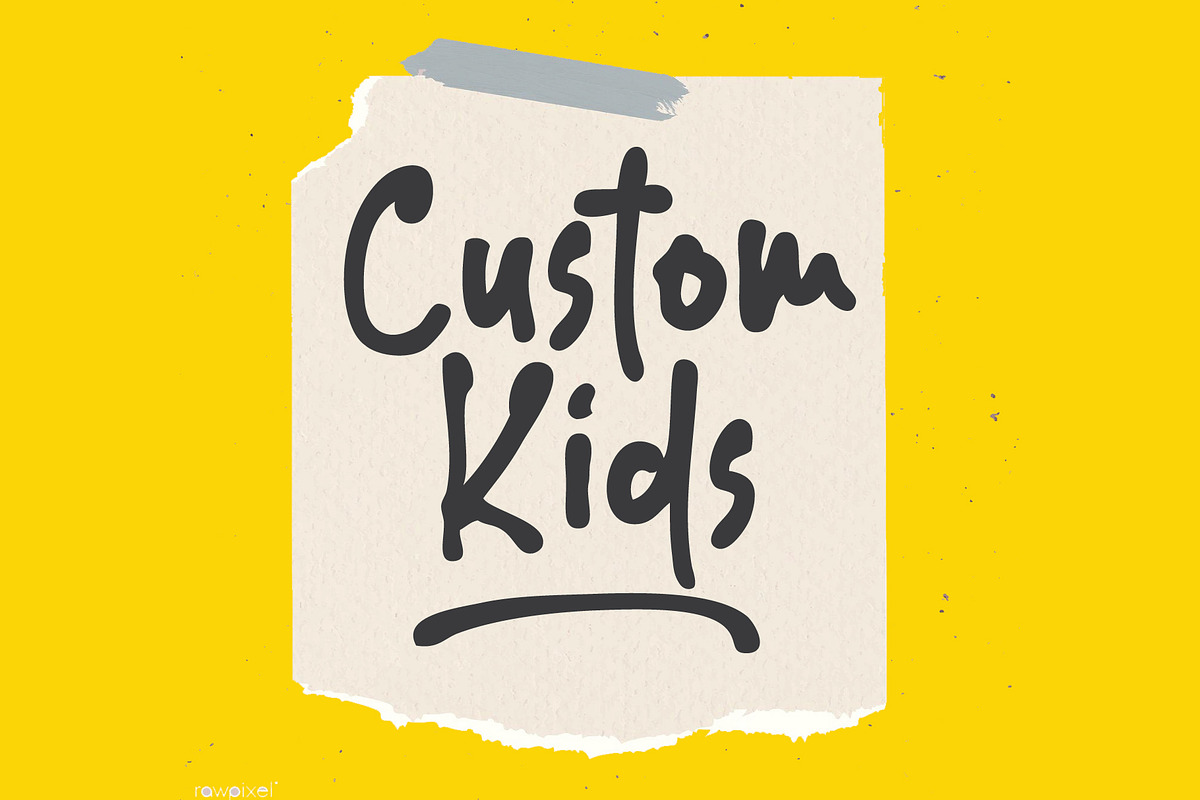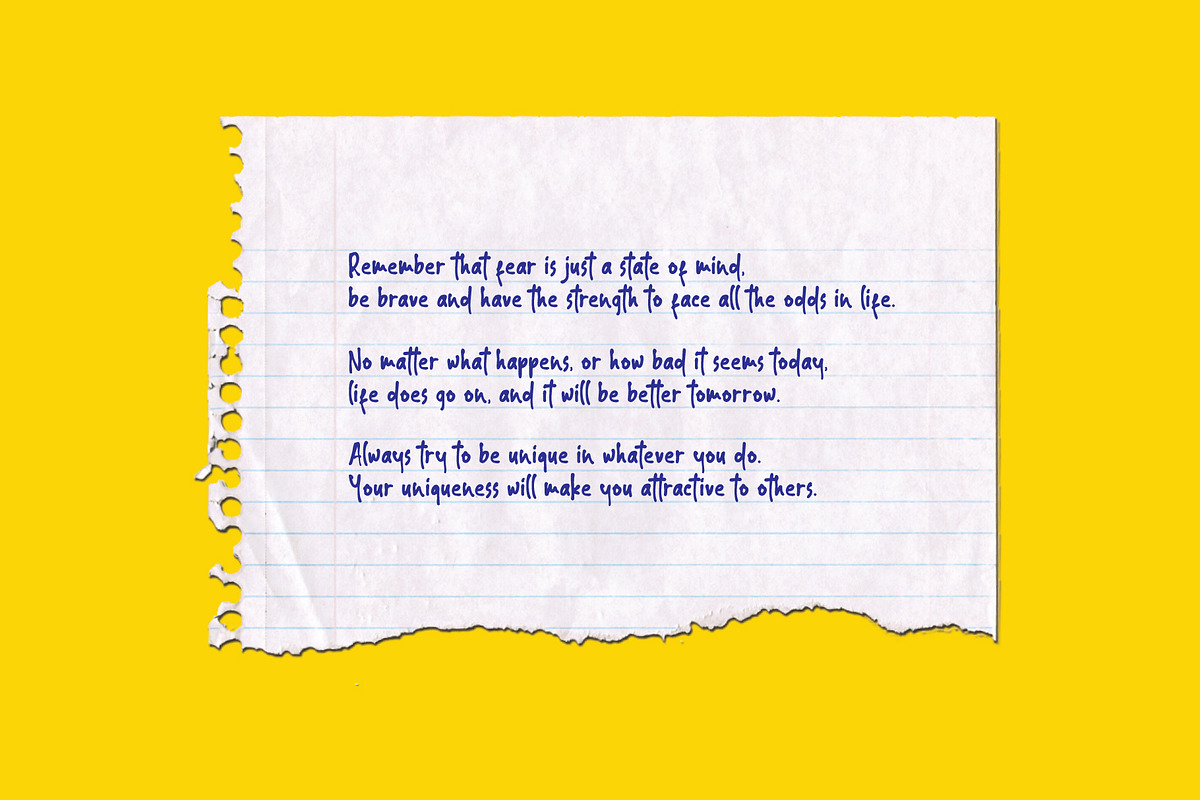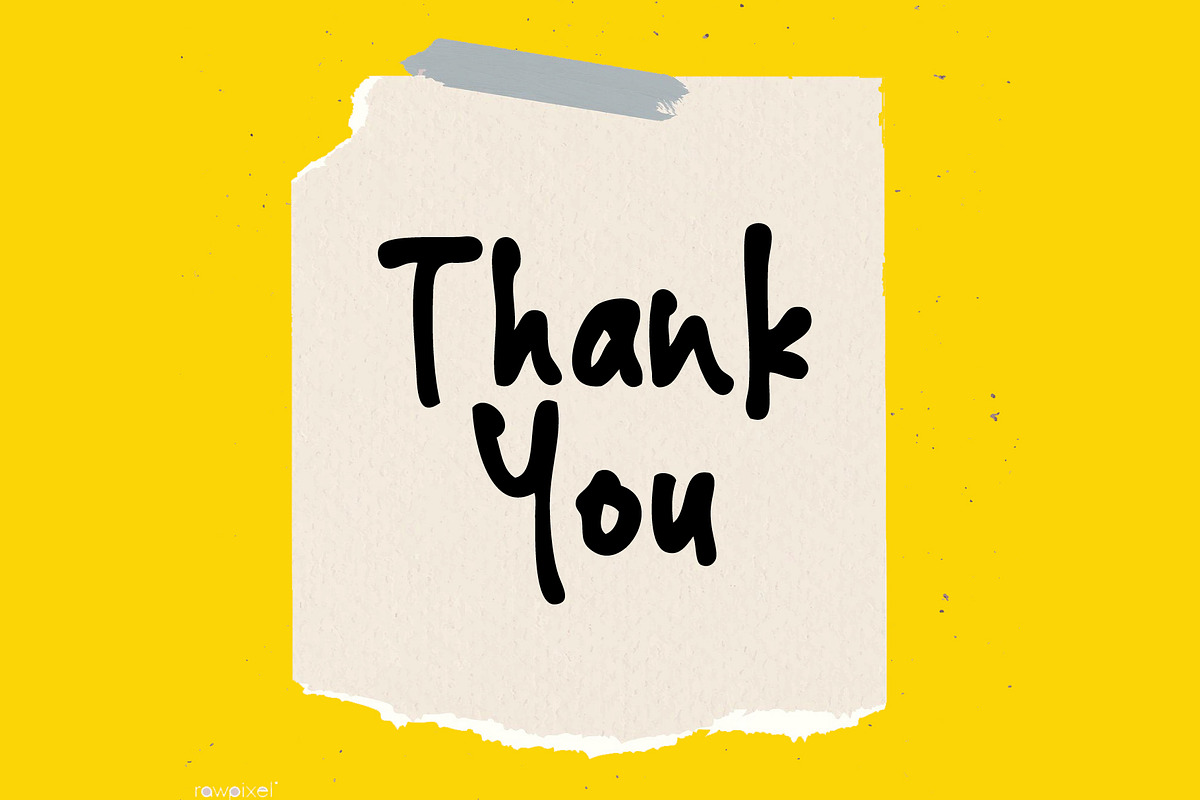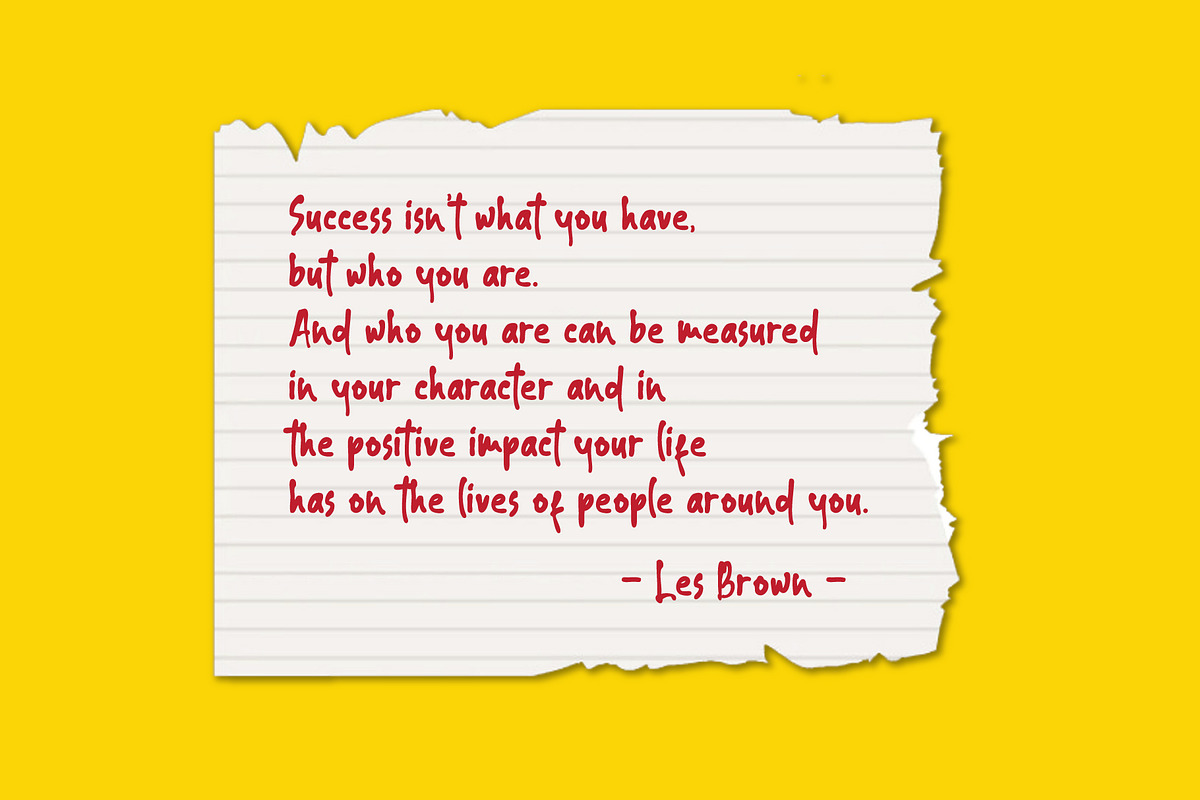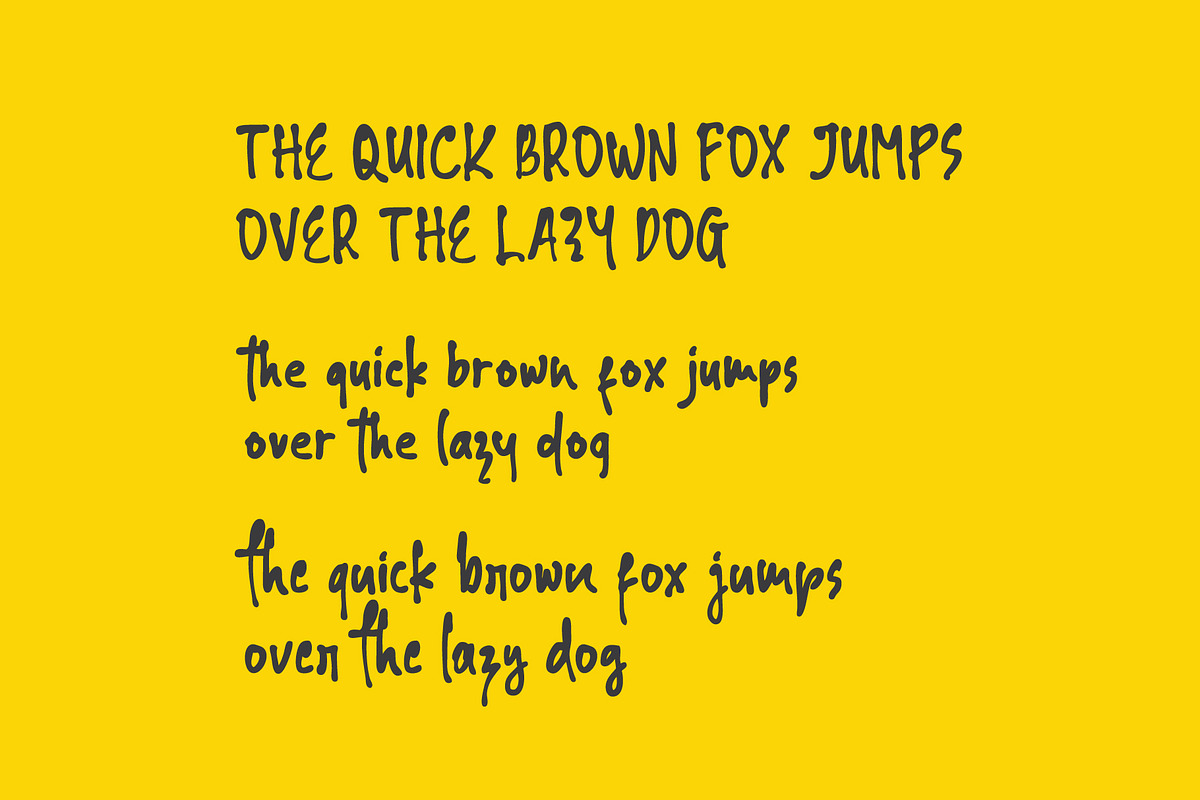
Custom Kids
Custom Kids - Handwritten fonts in upper and lower case. Characters made straight from the hands of a child for a warm and authentic look. This font is ideal for the design of children's printed products: posters, stickers, wallpaper, souvenirs, inscriptions on T-shirts, labels, postcards, cups, cards and games. Only your imagination can stop you.